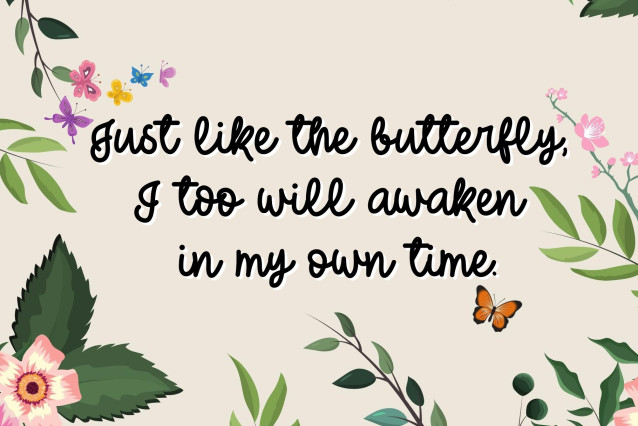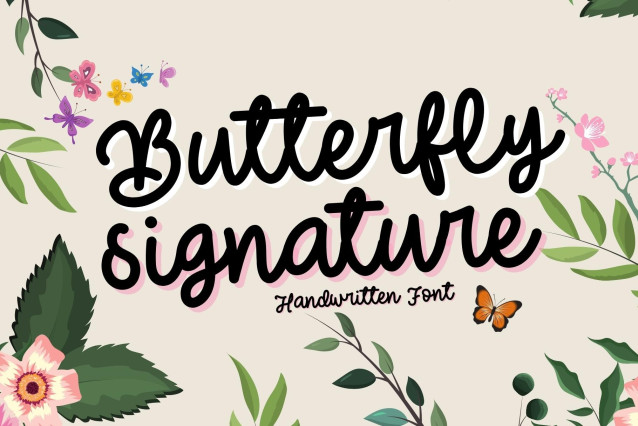
Butterfly Signature Font
Butterfly Signature Font is a graceful handwritten script font that captures the essence of elegance and fluidity. With its delicate curves and stylish letterforms, this font is perfect for branding, wedding invitations, logo designs, personal signatures, and social media graphics. Its handwritten charm gives your designs a touch of personality and class.